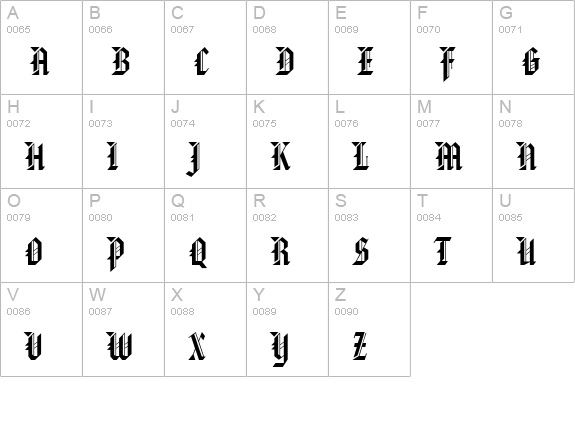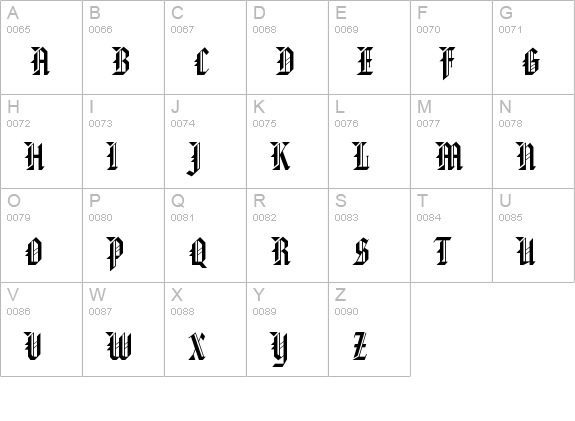
Gothic 32 Normal is the standard, neutral variant in the Gothic typeface family \xE2\x80\x94 well suited to general body text, paragraphs, and standard typographic work.
Gothic 32 Normal is a classic and versatile font that exudes a sense of mystery and elegance. Its sharp, angular lines and bold presence make it a perfect choice for projects that require a touch of Gothic flair. Whether you're designing a poster, logo, or invitation, Gothic 32 Normal will make a bold statement. This font is available for free download at FontsMarket.com, making it accessible to anyone looking to add a touch of sophistication to their designs. With its timeless aesthetic and easy readability, Gothic 32 Normal is sure to become a staple in your font collection.